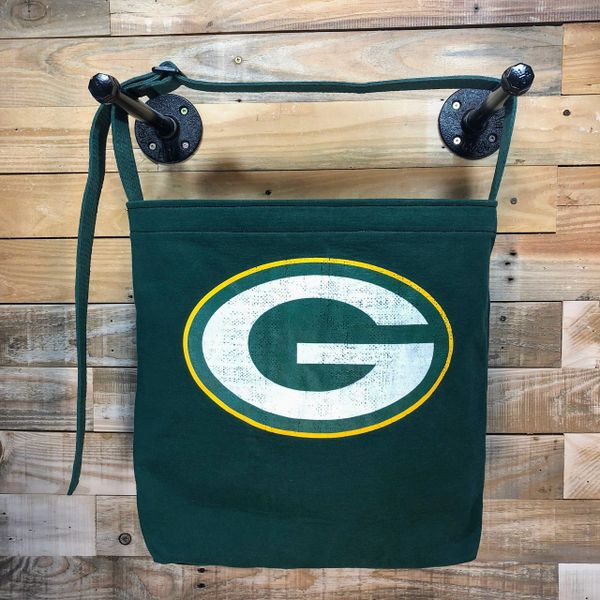
Green Bay Packers G Logo Font
Size nfl packers by sports fonts.
Braisher tasked his assistant st. The font is blairmdltc tt and the colors are green white and yellow green outline white g green backround behind the g why does the packers have the g on threr helmet. Your email address will not be published.
In fancy stencil army 82633 downloads 47 yesterday. 50 professional green bay packers fonts to download. Leave a reply cancel reply.
The green bay packers had added the familiar oval g logo in 1961 when vince lombardi asked packers equipment manager gerald dad braisher to design a logo. The lettering was executed in a geometric typeface with the contour of the g horizontally stretched and the b narrowed. The team was renamed green bay packers in 1937 and the need for the new emblem appeared so the square bold gb monogram was introduced by the club.
Required fields are marked comment. The teams official colors are dark green gold white. Green bay packers logo black and white.
A font based on the green bay packers logo. Font meme is a fonts typography resource. The wordmark is set in a stencil font which is very similar to gi.
Click here to download. The green bay packers redesigned logo resembles a football with the letter g inside it having the same shape. Green bay packers is the only non profit community owned major league professional sports team based in the united states.
Georgia tech actually has the same font of the g on both the green bay packers logo and their own. This font is tagged. The answer is really no georgia tech does not.